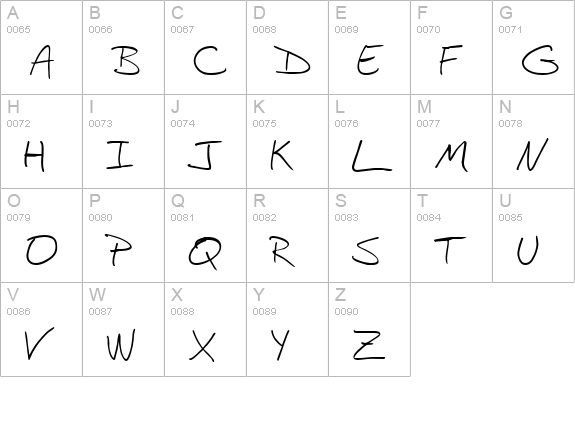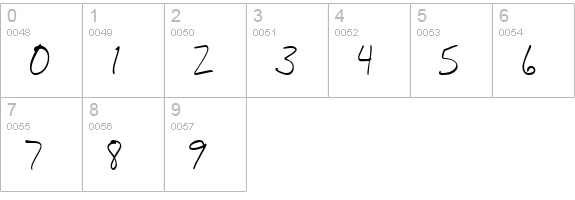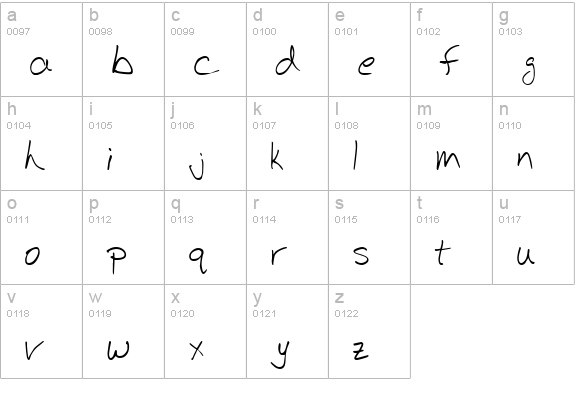
BudHand Regular is the standard, neutral variant in the BudHand typeface family \xE2\x80\x94 well suited to general body text, paragraphs, and standard typographic work.
BudHand Regular is a charming and versatile font that exudes a playful yet elegant vibe. Its smooth lines and unique hand-drawn style make it perfect for a wide range of design projects, from invitations to branding to social media graphics. This font strikes the perfect balance between whimsical and sophisticated, making it a great choice for adding a touch of personality to your creations. What's even better is that BudHand Regular is available for free download at FontsMarket.com. Whether you're a professional designer or a DIY enthusiast, this font is a must-have in your toolkit. Download it today and unleash your creativity with BudHand Regular!